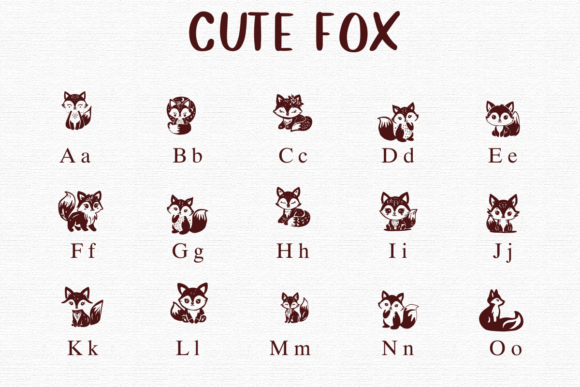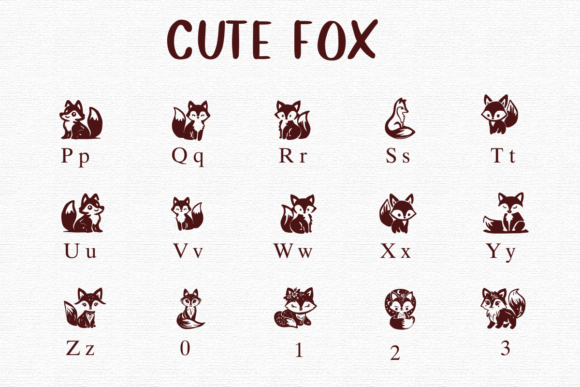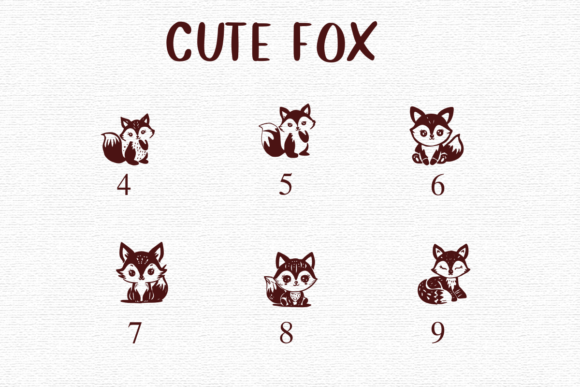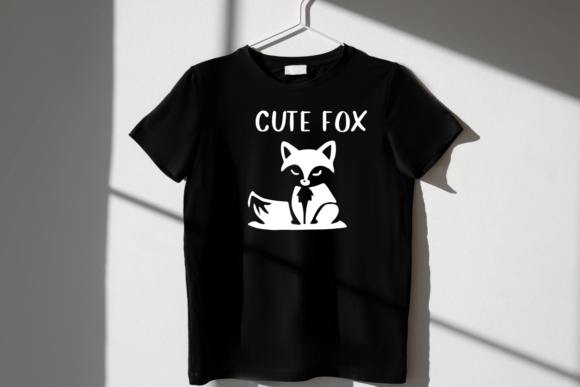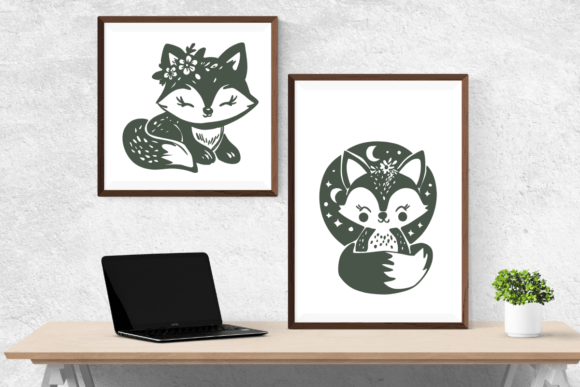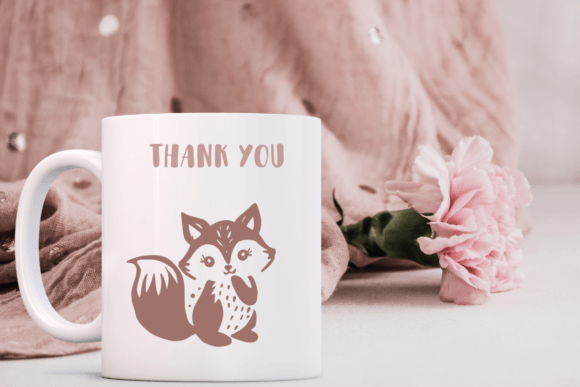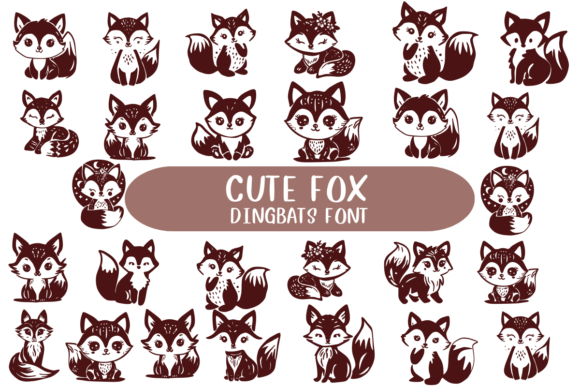
Cute Fox Font: Add a Touch of Whimsy to Your Designs
Are you tired of using the same old fonts in your designs? Look no further than the Cute Fox Font! This charming font is sure to bring a smile to your face and a touch of whimsy to your creations. In this article, we’ll dive into the world of Cute Fox Font and explore its unique features, uses, and benefits.
What is Cute Fox Font?
“Cute Fox” is a special type of font where each letter is replaced by a cute little fox. It’s like writing with adorable fox pictures instead of regular letters! Imagine being able to spell out your favorite words and phrases with these irresistible furry friends. Whether you’re a designer, crafter, or simply a fan of all things cute, this font is sure to delight.
Features of Cute Fox Font
- Unique and Playful Design: Each letter is carefully designed to resemble a cute fox, making it perfect for projects that require a touch of personality.
- Adorable Fox Illustrations: The font features high-quality illustrations of foxes in various poses and expressions, ensuring that your designs will be eye-catching and engaging.
- Scalable: The font is designed to be scalable, ensuring that it looks great in various sizes and resolutions.
Uses of Cute Fox Font
The Cute Fox Font is versatile and can be used in a variety of projects, including:
- Graphic Design: Add a touch of whimsy to your logos, brochures, and business cards.
- Crafting: Use the font to create adorable signs, banners, and decorations for parties, events, and everyday use.
- Digital Art: Incorporate the Cute Fox Font into your digital artwork, such as illustrations, comics, and animations.
- Social Media: Use the font to create eye-catching social media graphics, posts, and stories.
Benefits of Using Cute Fox Font
So, why should you use the Cute Fox Font in your designs? Here are just a few benefits:
- Adds Personality: The Cute Fox Font adds a touch of personality and whimsy to your designs, making them more engaging and memorable.
- Stand Out: The unique design of the font ensures that your projects will stand out from the crowd and grab attention.
- Fun and Playful: The font is perfect for projects that require a fun and playful tone, such as children’s products, party decorations, and social media graphics.
Tips for Using Cute Fox Font
Here are a few tips for getting the most out of the Cute Fox Font:
- Use it Sparingly: While the font is adorable, it’s best to use it sparingly to avoid overwhelming the design.
- Mix and Match: Experiment with different font sizes, colors, and styles to create a unique look.
- Pair with Other Fonts: Pair the Cute Fox Font with other fonts to create a visually appealing contrast.
The Cute Fox Font is a unique and playful font that’s sure to bring a touch of whimsy to your designs. With its adorable fox illustrations, ease of use, and versatility, it’s perfect for designers, crafters, and anyone looking to add a little personality to their projects. So why not give it a try and see how it can enhance your designs?